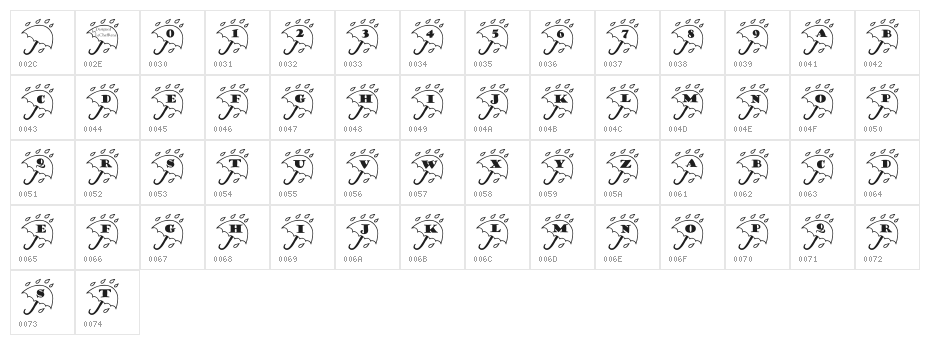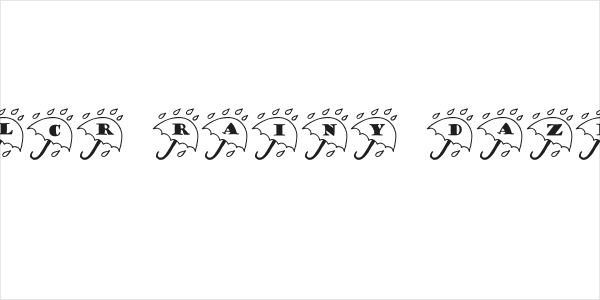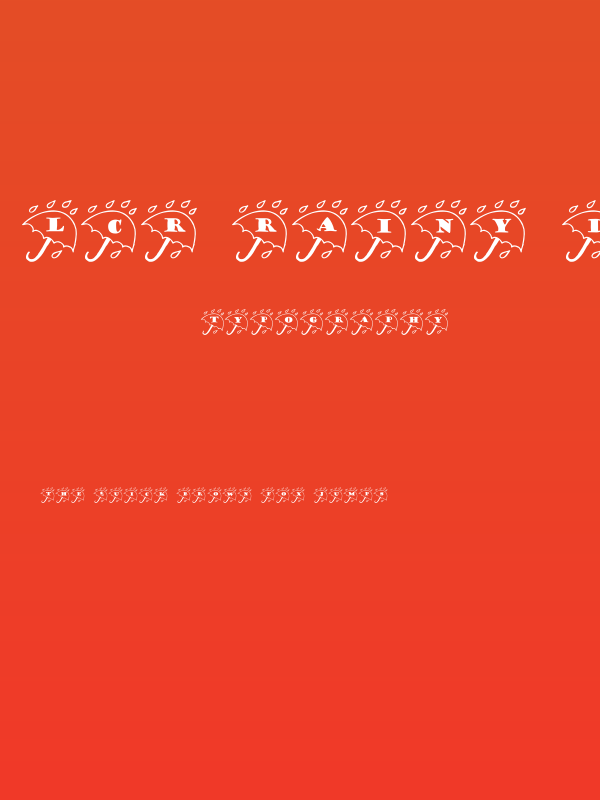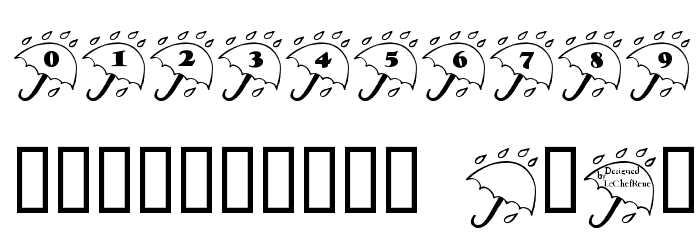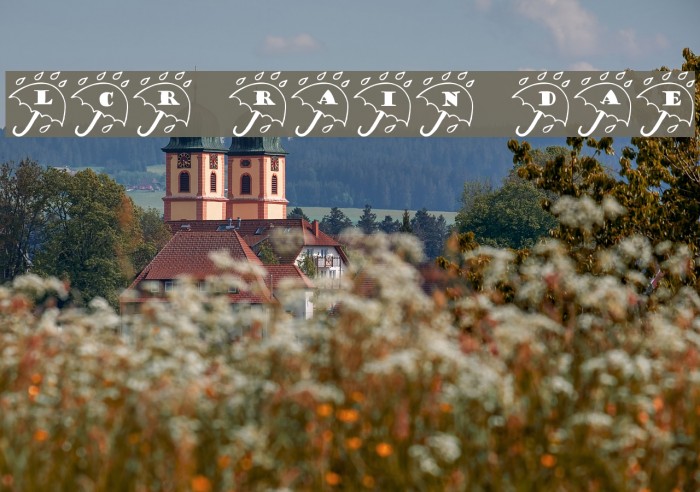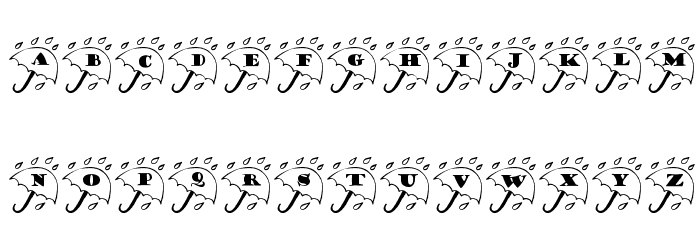
LCR Rainy Daze Font
LCR Rainy Daze Description
This whimsical font features each character enclosed within an umbrella shape, with raindrop accents above. The letters are bold and playful, offering a unique decorative style that stands out. The design is consistent across uppercase and lowercase letters, as well as numbers, maintaining the umbrella motif throughout. The font's playful nature makes it ideal for creative projects that require a touch of fun and imagination. The characters are well-defined, with a moderate spacing that ensures readability while maintaining the decorative aspect.
| Use Case | Logos, Headlines, Posters |
| Proposed Projects | Ideal for children's books, greeting cards, playful branding, and event invitations. |